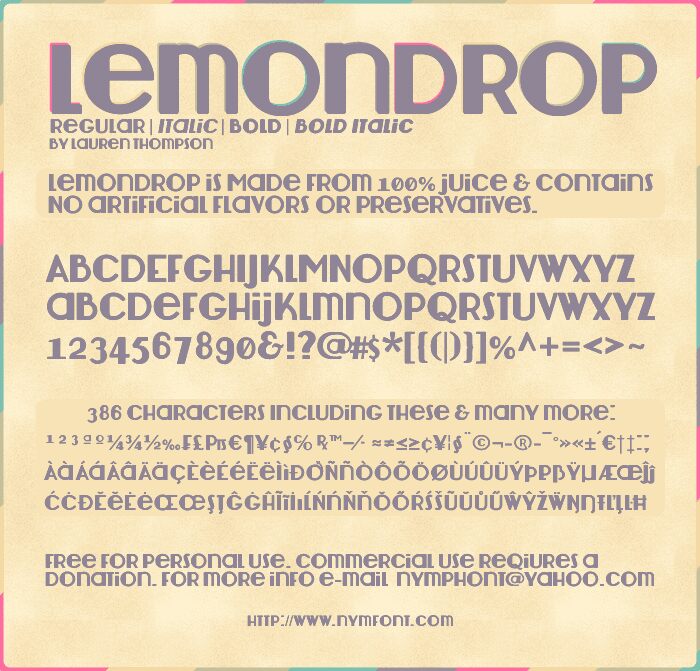
Lemondrop by Lauren Thompson of nymFont is a free geometric sans serif with broad forms and an offbeat display character. Rounded arches and near-circular letters meet sharp triangular cuts, creating a lively mix of soft and pointed shapes. Stroke widths shift noticeably, and several letters use unexpected bends that keep the design from feeling strictly mechanical.
Posters are its clearest setting, especially for music, nightlife, or arts events with a playful modern edge. It also suits album covers and fashion packaging. The exaggerated silhouettes can become part of an illustrated event emblem, then carry the same graphic idea onto merchandise.